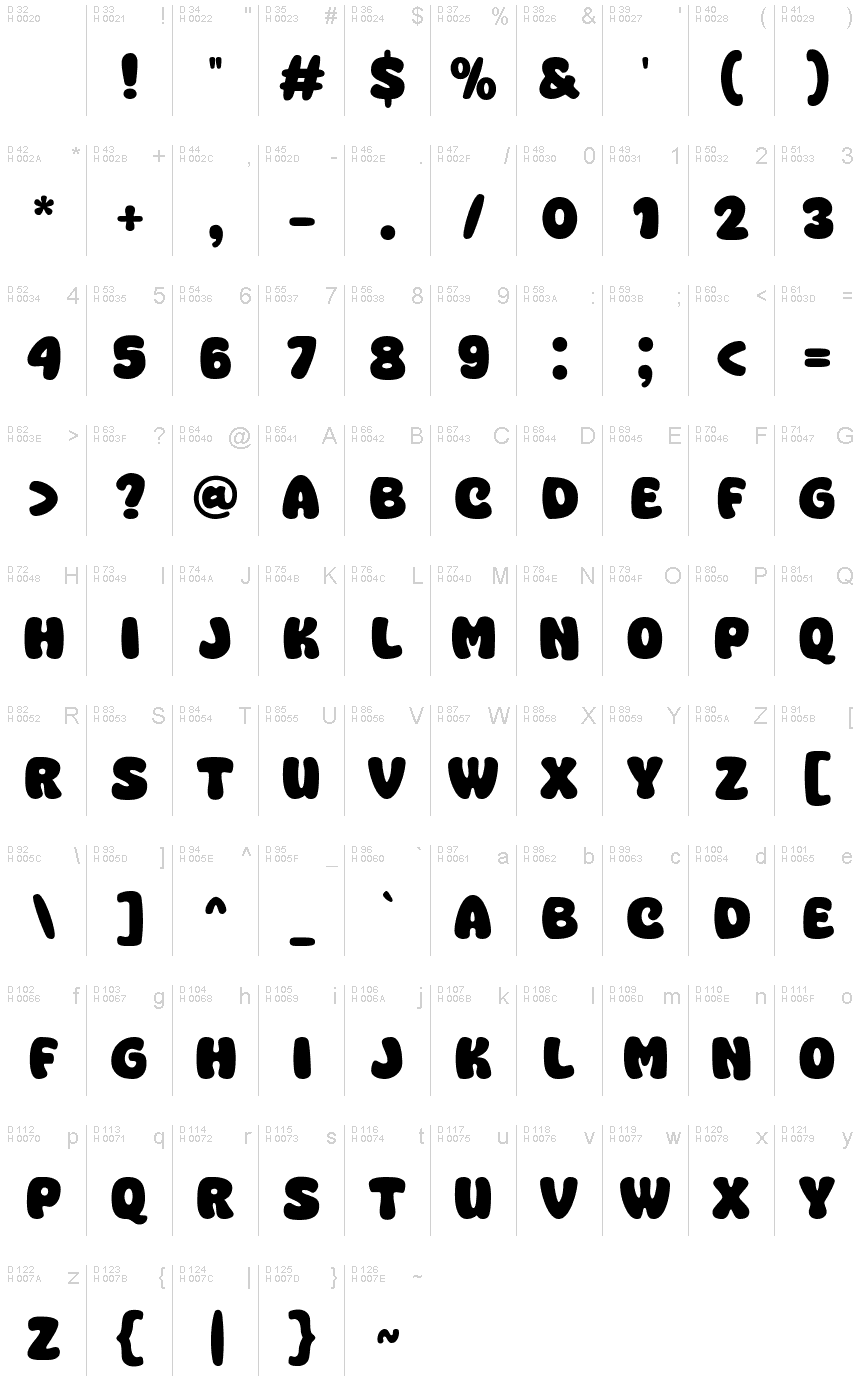
Super Plants
Super Plants, designed by fsuarez913, is a vibrant and eye-catching display font that brings a playful touch to any project.
Its extra-bold weight ensures maximum impact, making it ideal for packaging designs, children's books, and party invitations. With its cartoon style, Super Plants adds a touch of whimsy to posters, social media graphics, and websites targeting the young at heart. This versatile font injects energy into branding materials for eco-friendly businesses or gardening enthusiasts seeking a fresh look.
Let Super Plants breathe life into your creative endeavors with its bold and lively personality.